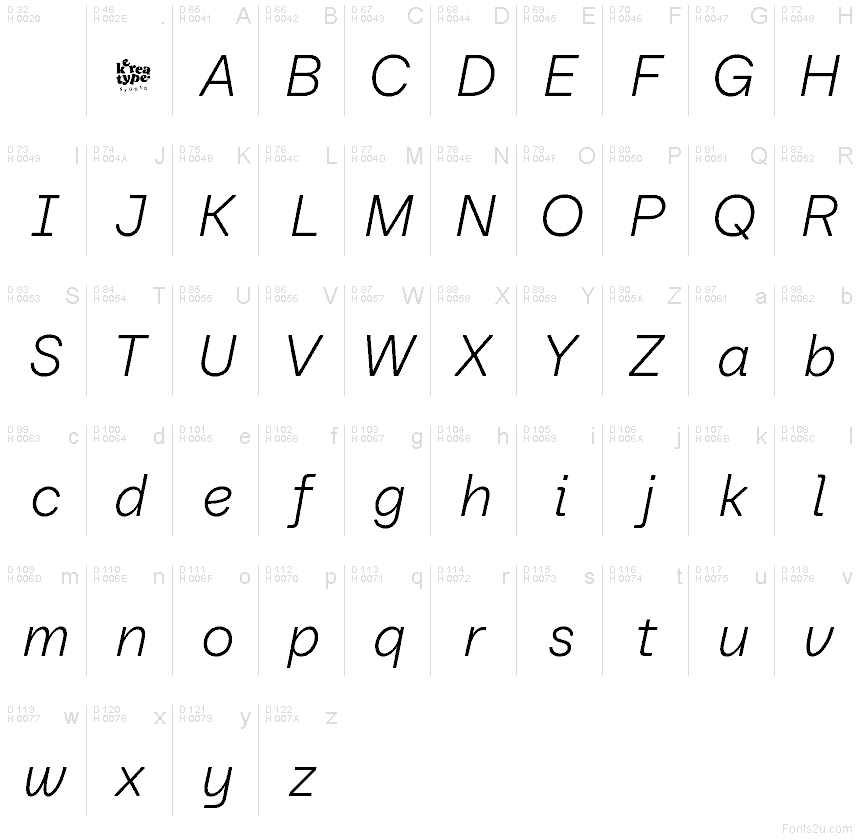
Baru Sans Demo ExtLt Ita
Baru Sans Demo ExtLt Italic font by Kereatype Studio is a free extra‑light italic sans serif typeface. Part of the Baru Sans family, it solves the tricky brief of adding emphasis without shouting—its airy weight, smooth curves, and gentle forward lean feel crisp and effortless, like pencil lines skimming across paper. The rhythm stays even, so subheads and captions read cleanly while still carrying a hint of motion.
Using Baru Sans Demo ExtLt Italic, you can add a refined whisper to fashion lookbooks, luxury branding, portfolio sites, magazine pull quotes, minimalist posters, and sleek packaging. The slim forms leave room to breathe in tight layouts, and the subtle slant keeps text lively, not fussy. Pair it with Baru Sans Regular for body copy, and bump tracking slightly when setting this free font at larger sizes.